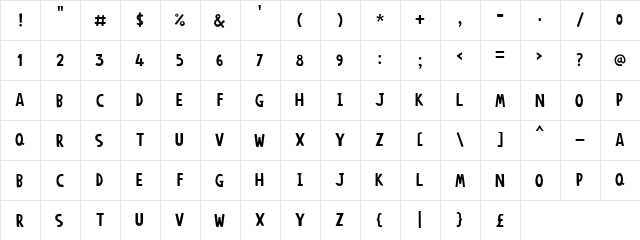
AnonimRound Regular
Design Context for AnonimRound Typeface
AnonimRound softens its letterforms with rounded terminals, giving it an approachable, friendly quality that works well in consumer-facing and digital contexts.
A natural fit for tech startups, health and wellness brands, children's products, and friendly consumer apps.
Font Pairing: Pairs well with a rounded or humanist sans for body copy, maintaining the friendly tone without relying on AnonimRound to carry extended reading.
Pro Tip: Pair AnonimRound with a geometric sans for a balanced system — the rounded softness works as a warm counterpoint to harder-edged companions.